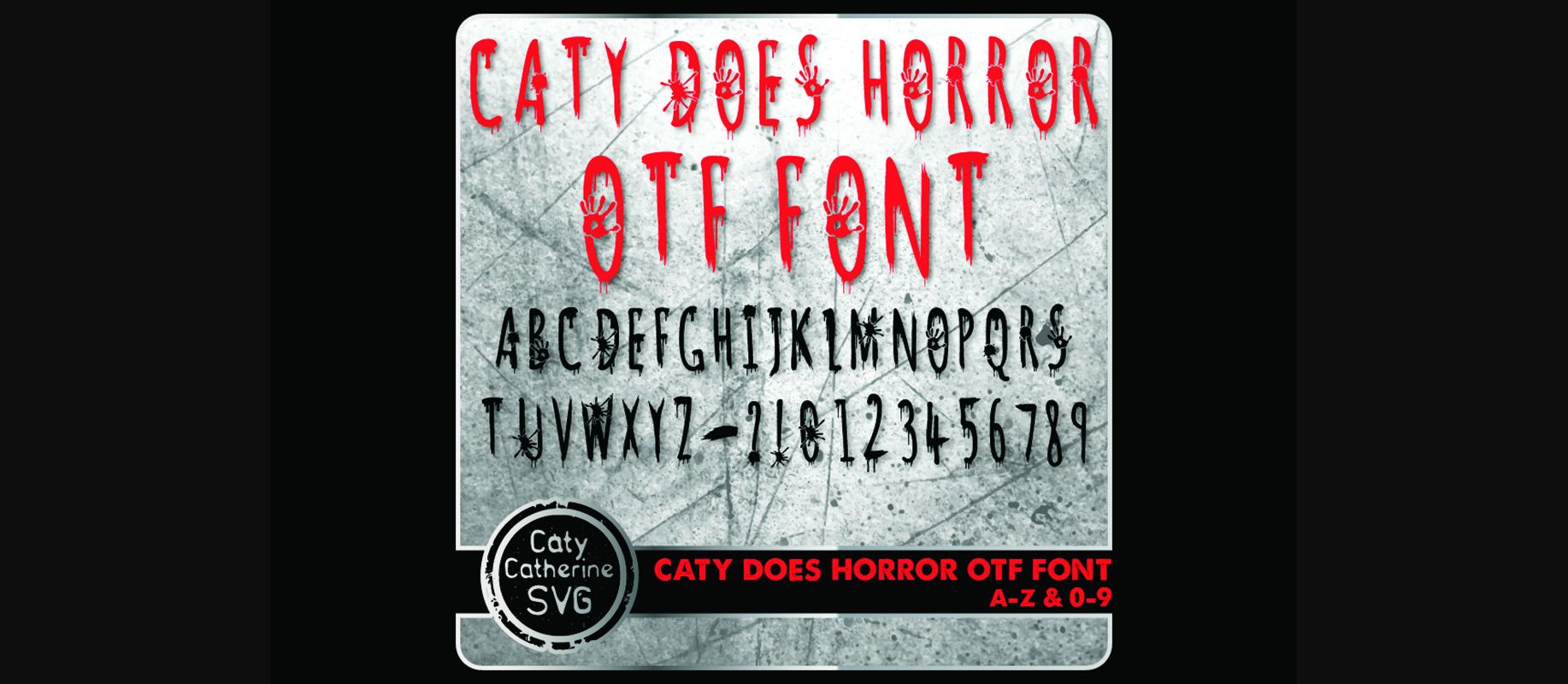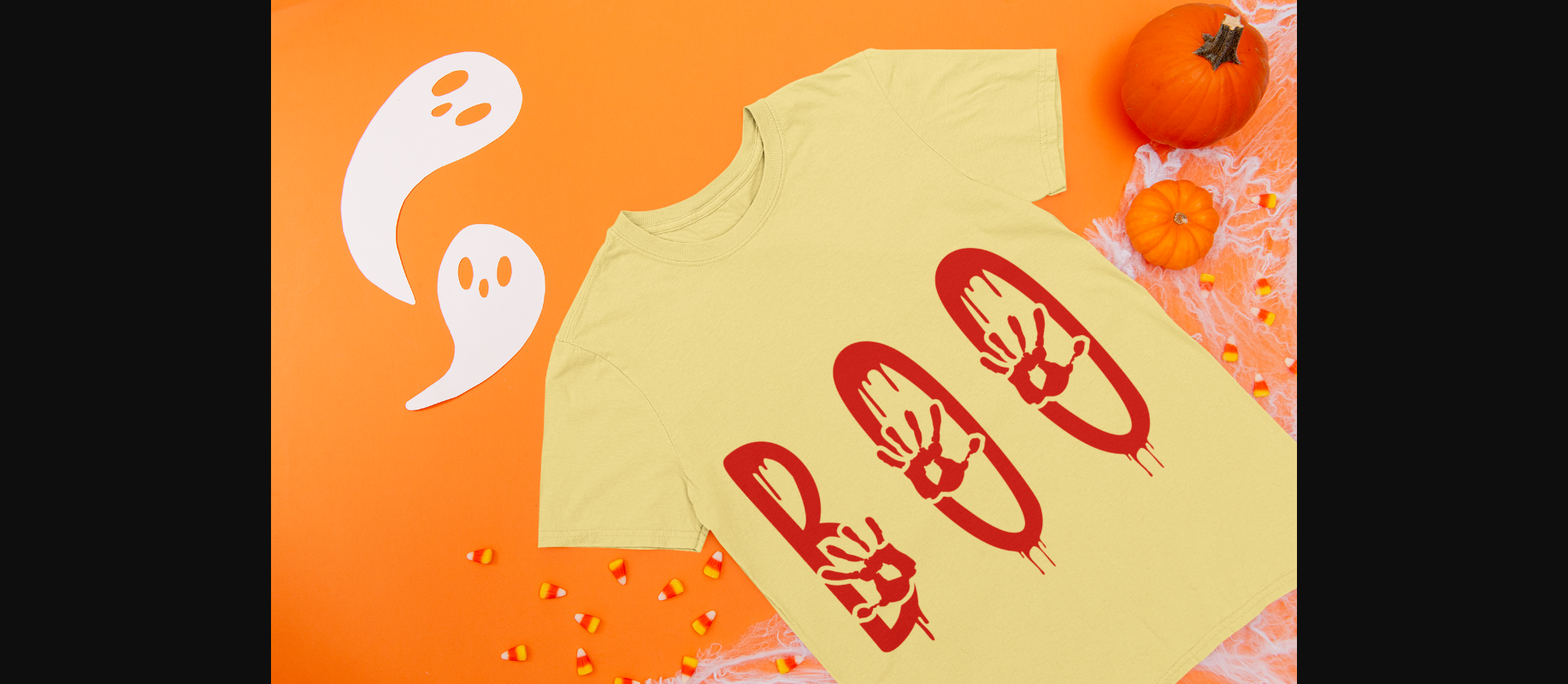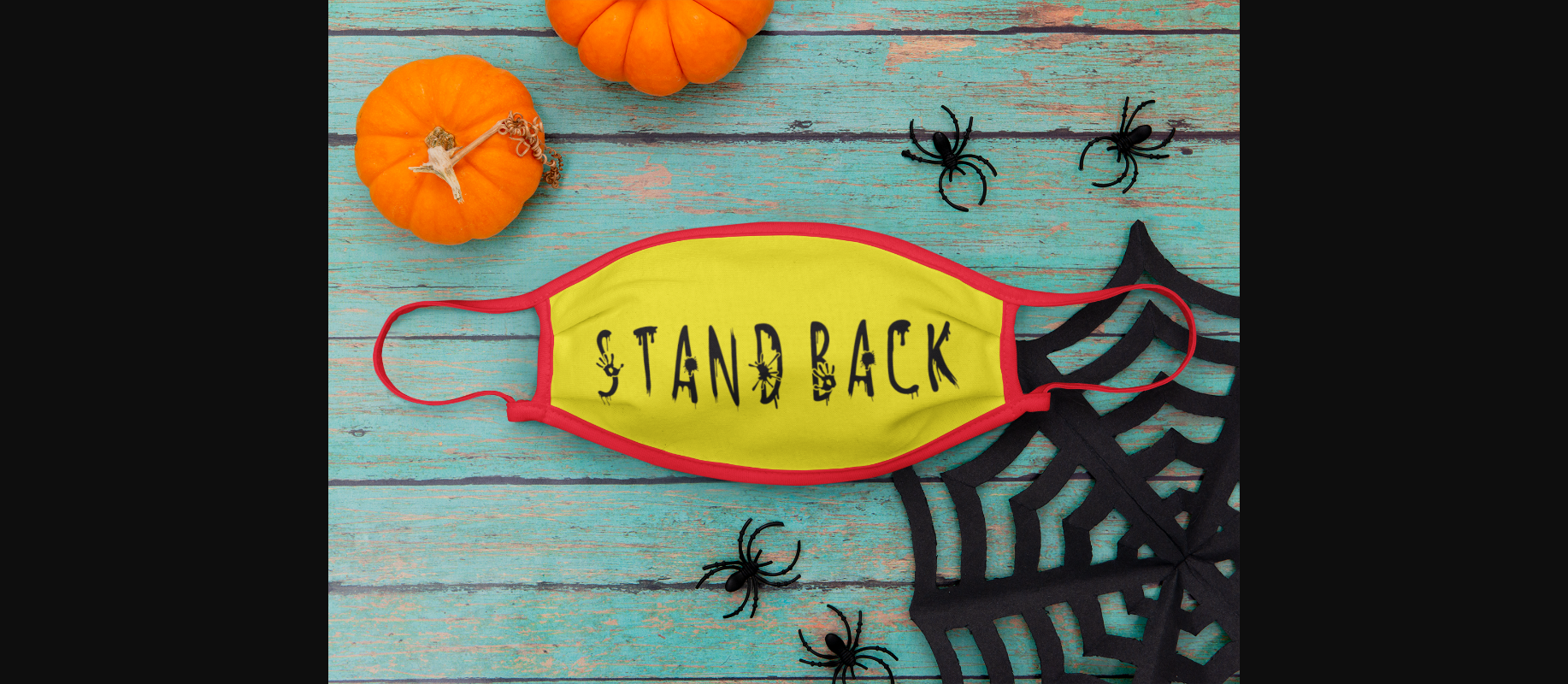
About Caty Does Horror Font
Caty Does Horror is a cool and spooky decorative font. Add it to your Halloween crafts, horror movie posters, t-shirts and anything else that requires a spectacular look.